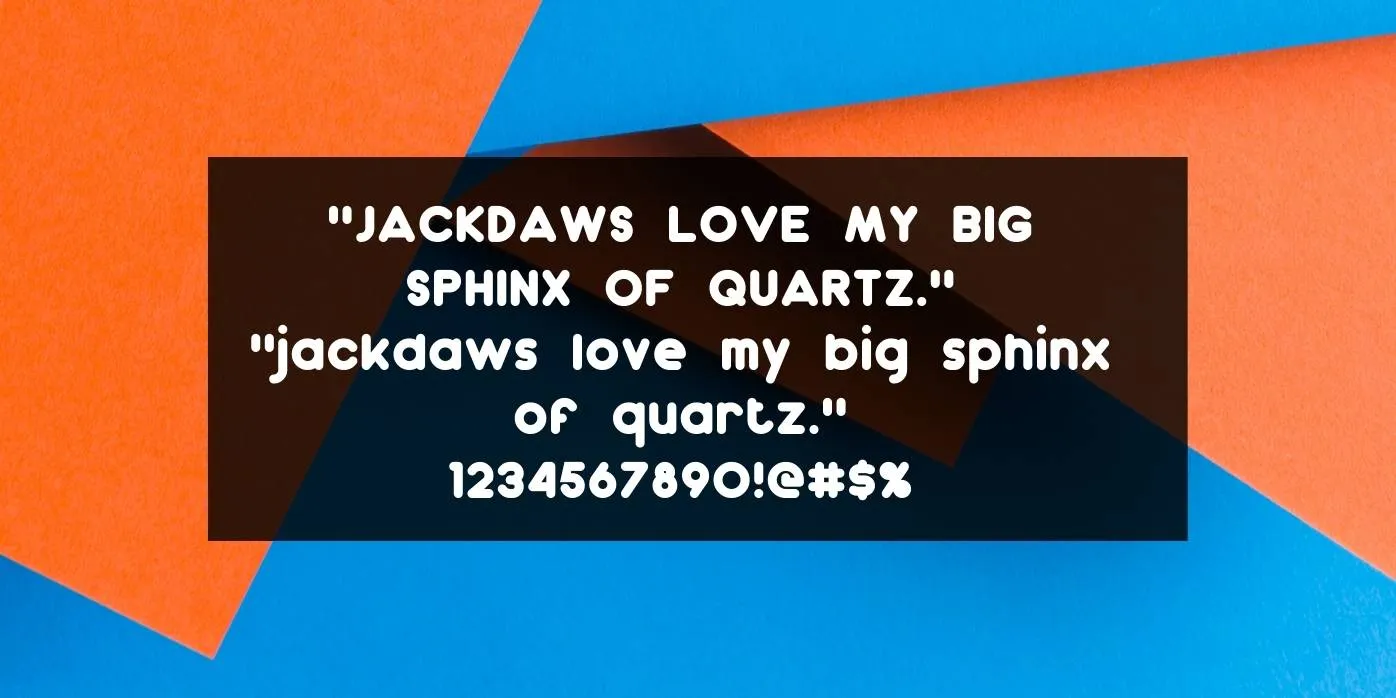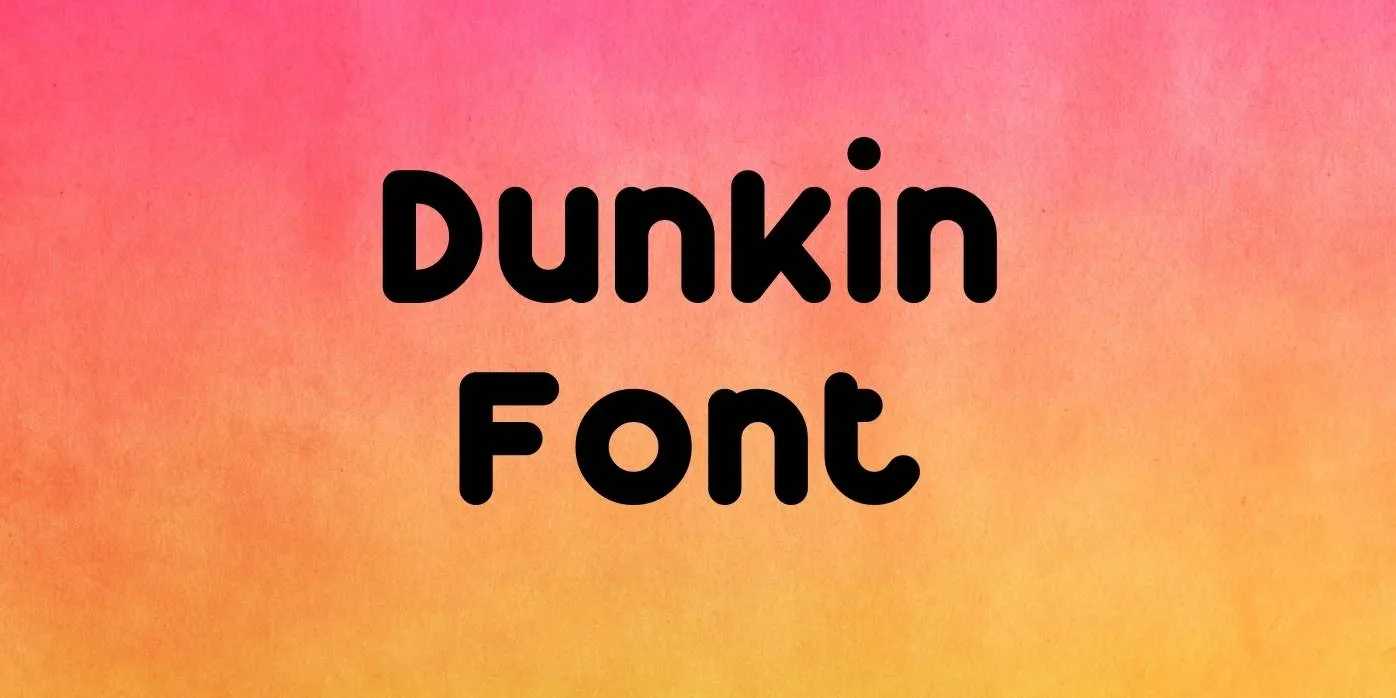
Dunkin Font
Here we introduce Dunkin Font which belongs to the category of sans serif family. This typeface was designed by Pixel Sagas. This design aims to create a font that would be suitable for both digital and print media. This typeface has been optimized for use in small sizes and it comes with a set of 12 unique fonts.
Dunkin Font was created with the help of many software programs including Adobe Photoshop, Illustrator, and Inkscape. The typeface includes a variety of features such as support for multiple languages, ligatures, fractions, and old-style numerals. For more classic features, you will have to use its alternative brandon text font which has the same features. The copy-and-paste function of this typeface is very classic.
It also includes several alternate characters which can be accessed via the character map. Dunkin Font is available in both TTF and OTF formats. You can also use the generator tool of this family which is very suitable for various designs.